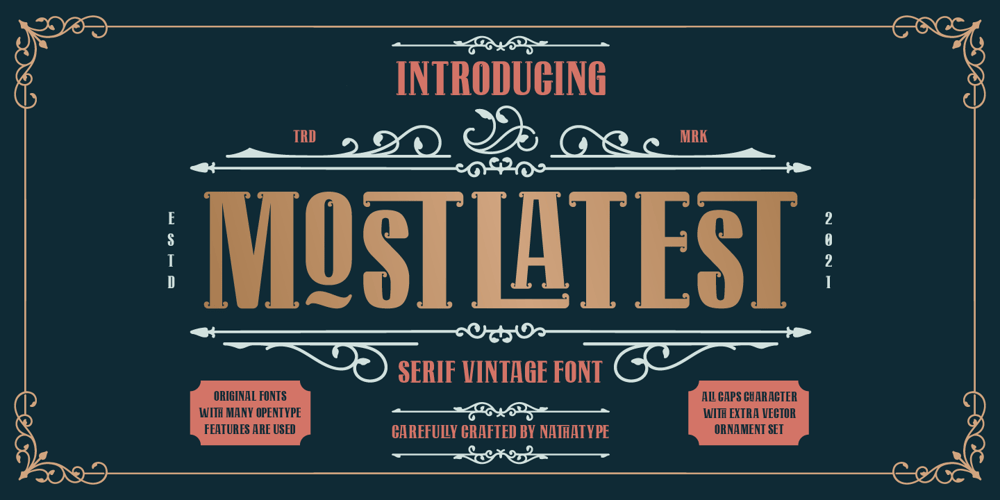
Mostlatest Font Family was designed by Donis Miftahudin and published by Nathatype. Mostlatest contains 2 styles and family package options. Ready to make your branding spark? If you need to create a big, bold logo for your business, work on a poster for an event, or whatever your project may be-then this is the perfect font for you. Mostlatest-A Vintage FontMostlatest is a captive font designed with strong outlines and fat strokes to bring your branding to life and add a touch of retro style. This font is made all in uppercase that easy on the eyes and nice to look while it’s also easy to read. Mostlatest becomes more special with bonus option. Perfect to create amazing headings, logos, menus, social media graphics, and many more. Our font always includes Multilingual Support to make your branding reach a global audience. Features: Ligatures Swashes Alternates Bonus Ornament PUA Encoded Numerals and Punctuation Thank you for downloading premium fonts from Nathatype